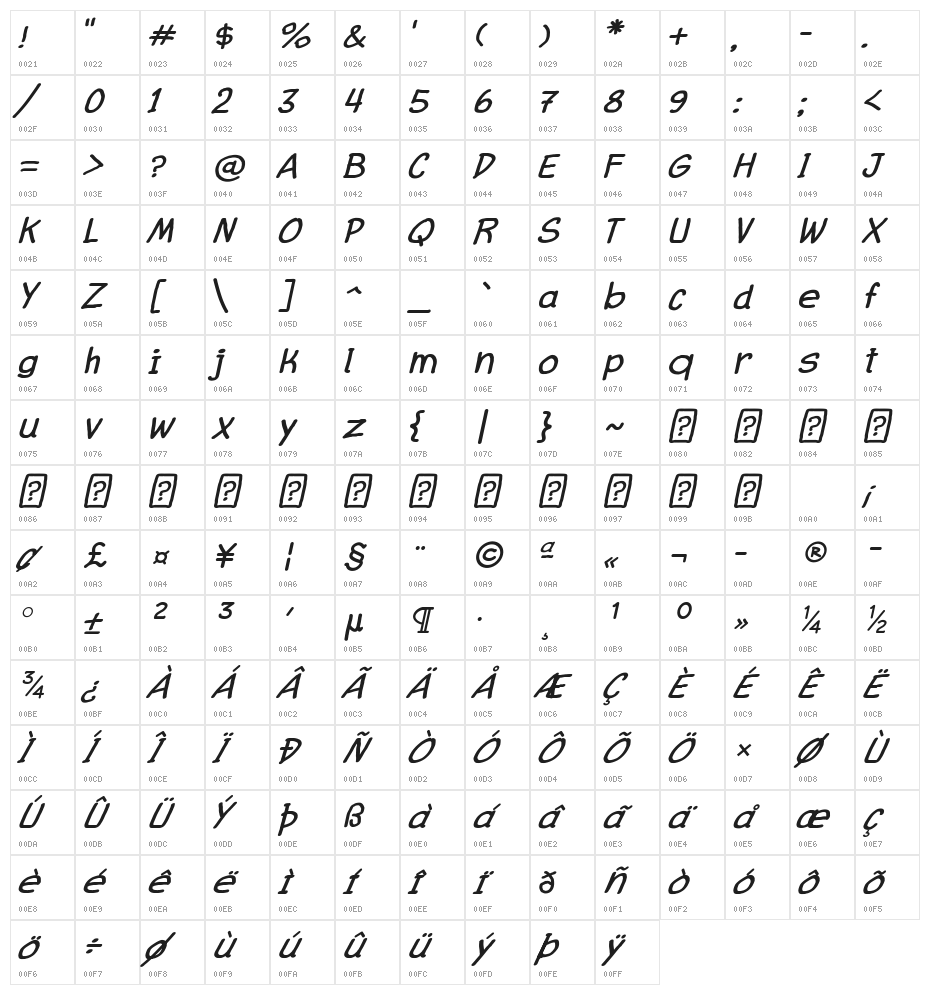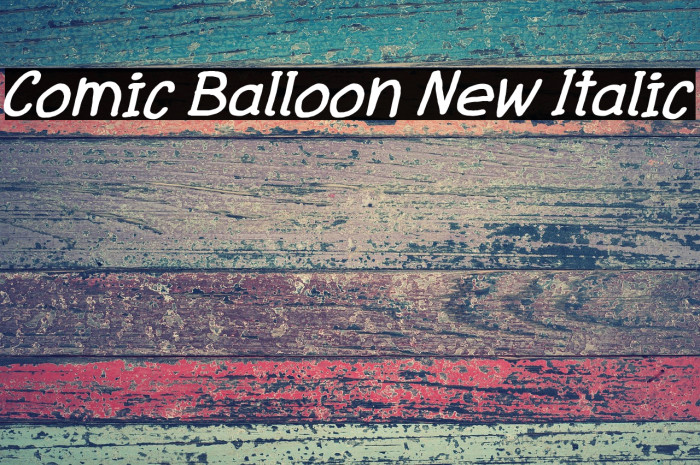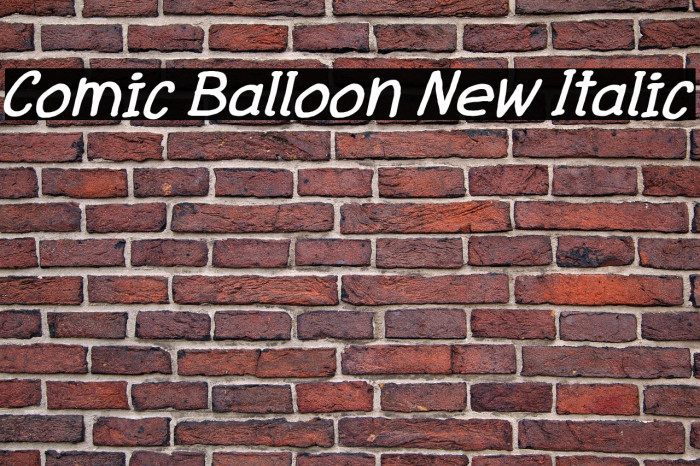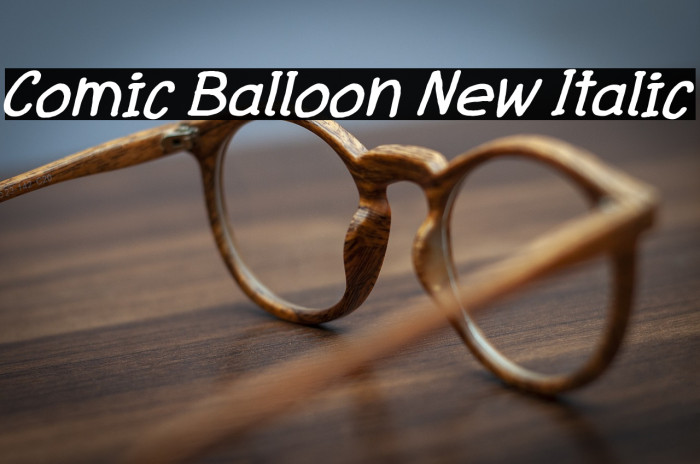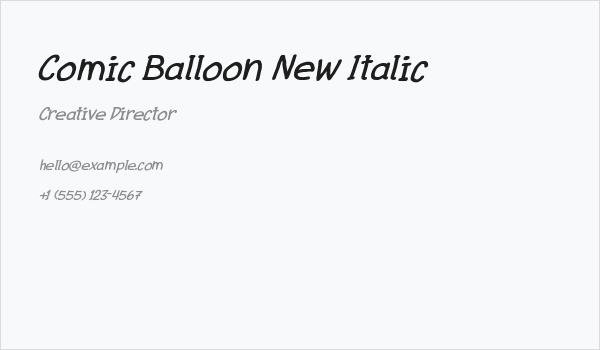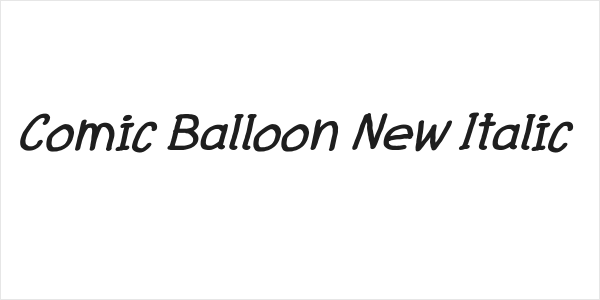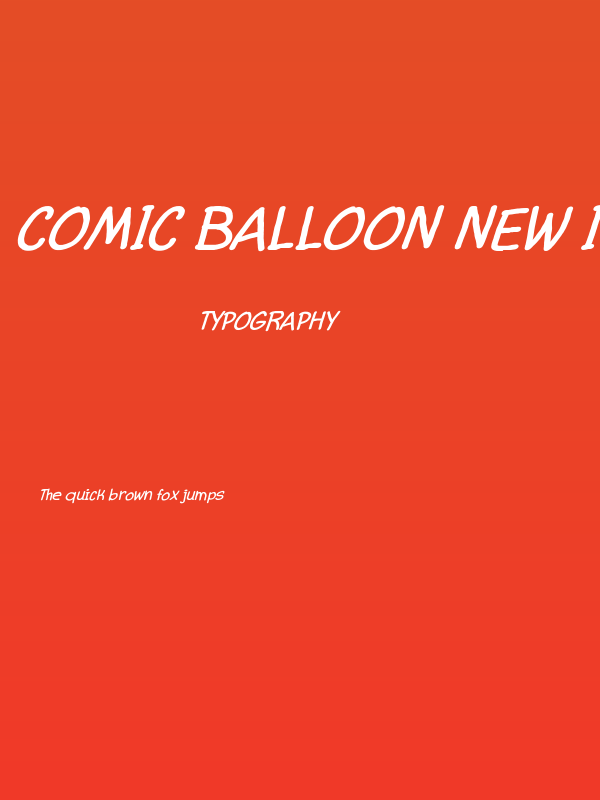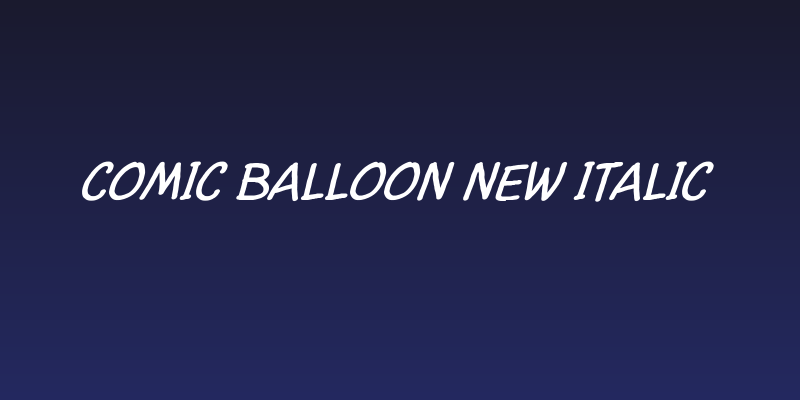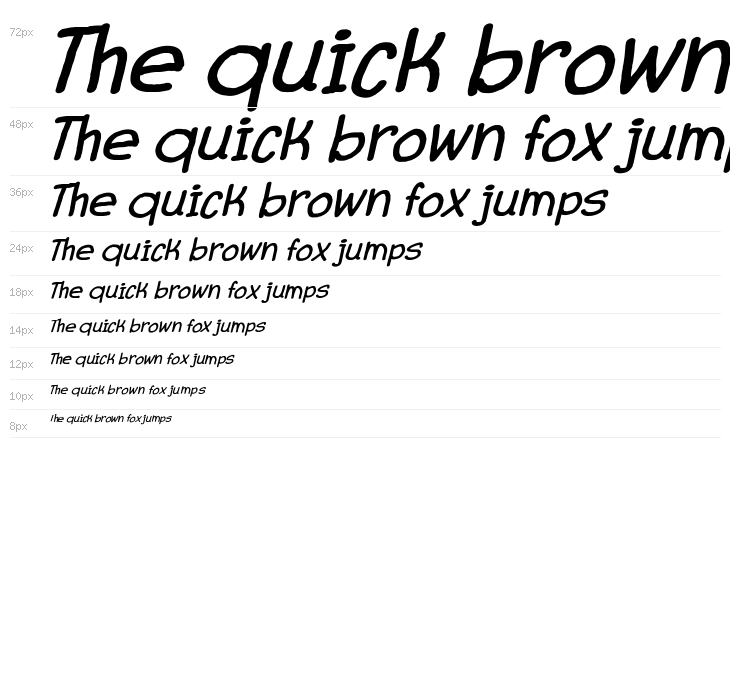
Comic Balloon New Italic Font
Comic Balloon New Italic Description
This playful and dynamic font features a handwritten style with a slight slant, giving it an informal and friendly appearance. The characters are rounded and bold, with a consistent stroke width that adds to its legibility. The font's whimsical nature is enhanced by its slightly exaggerated curves and loops, making it ideal for creative and fun projects. The spacing between characters is balanced, ensuring readability while maintaining its lively character. This font is perfect for projects that require a touch of humor and personality.
| Use Case | Headlines, Logos, Informal text |
| Proposed Projects | Ideal for comic books, children's books, playful branding, and informal invitations. |